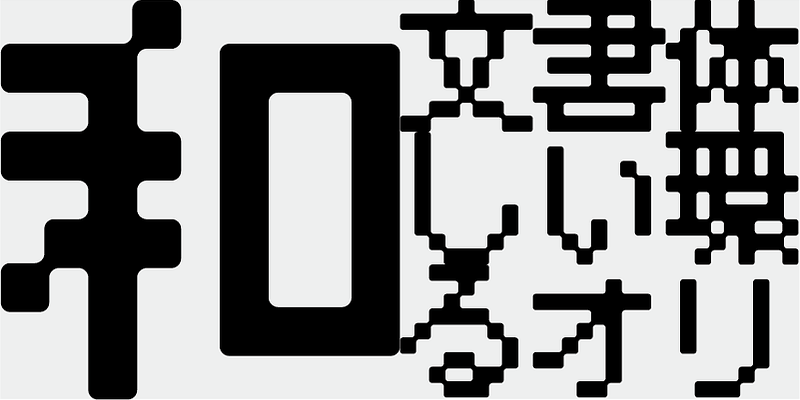
AB Megadot9 Font Free Download is a bold and modern typeface that combines geometric precision with striking character design. Its clean lines and slightly futuristic feel make it perfect for branding, headlines, logos, tech-related projects, posters, and any design that needs a bold, attention-grabbing statement.
The unique structure of AB Megadot9 gives it a strong, graphic presence, while maintaining legibility even in larger sizes. This versatile font can be used in both print and digital formats, making it an excellent choice for contemporary designs.